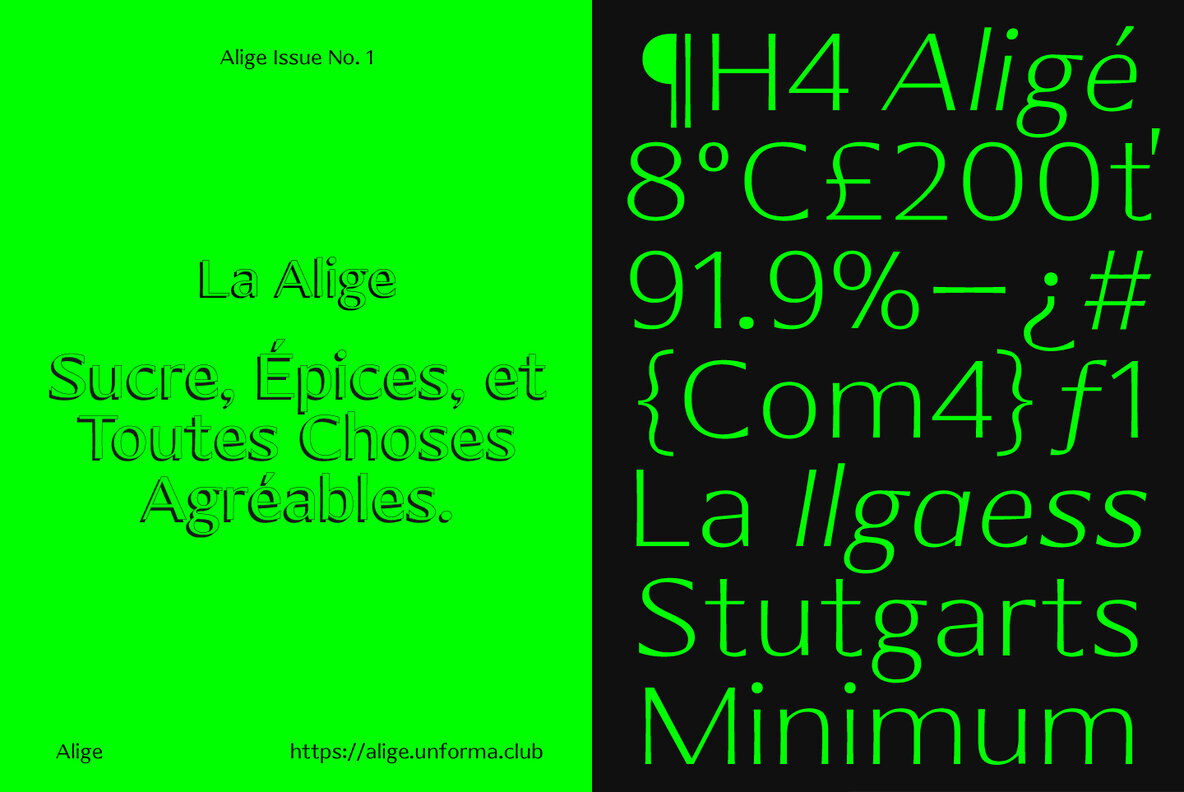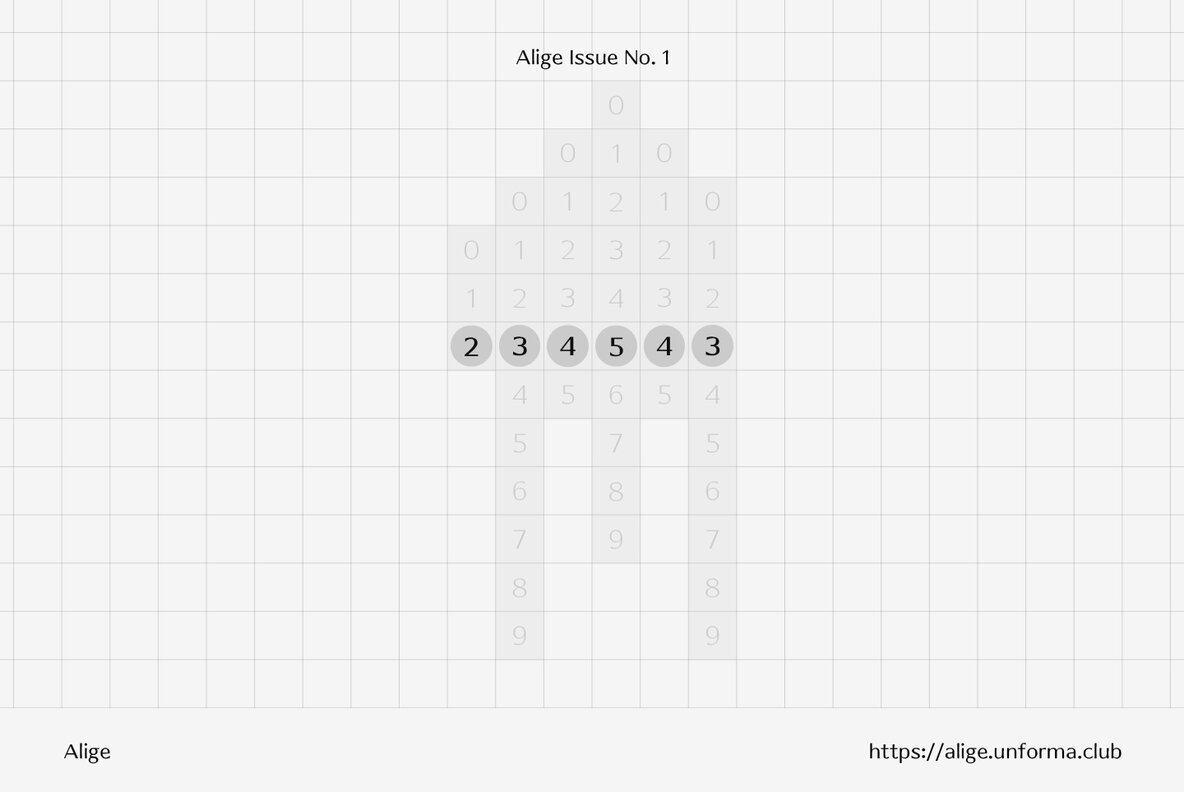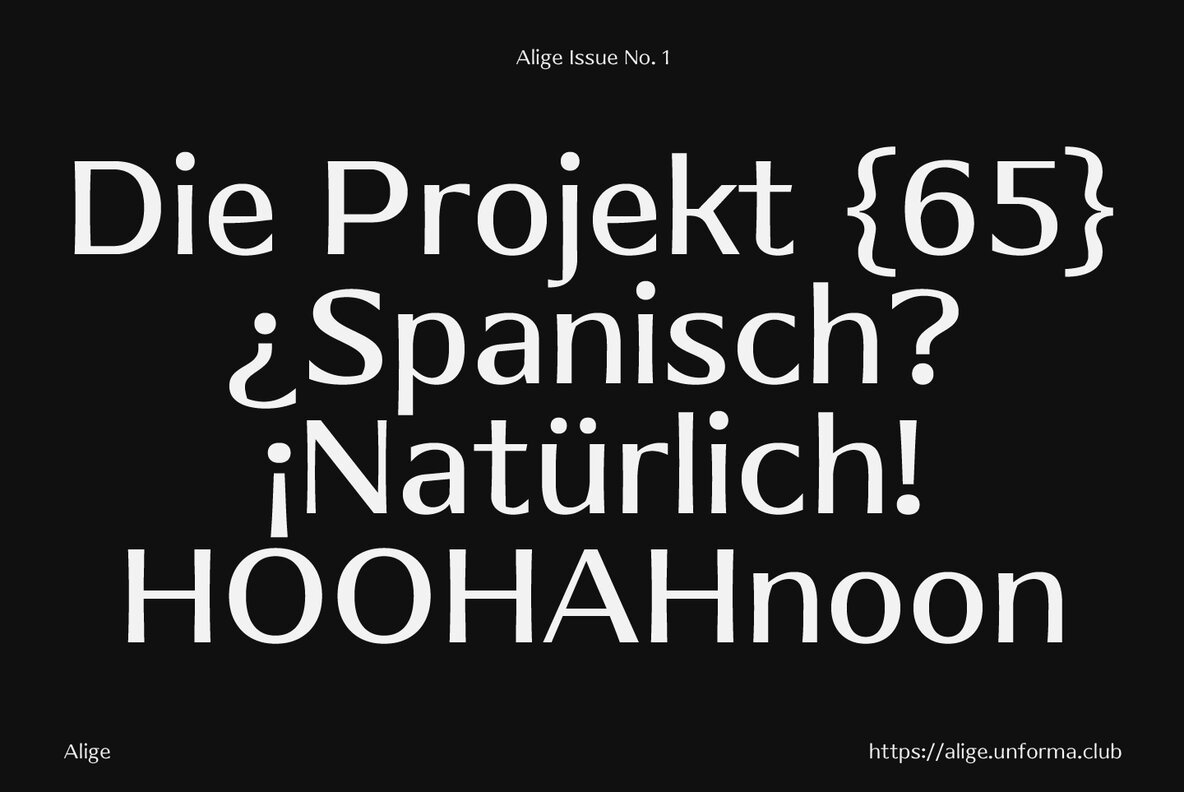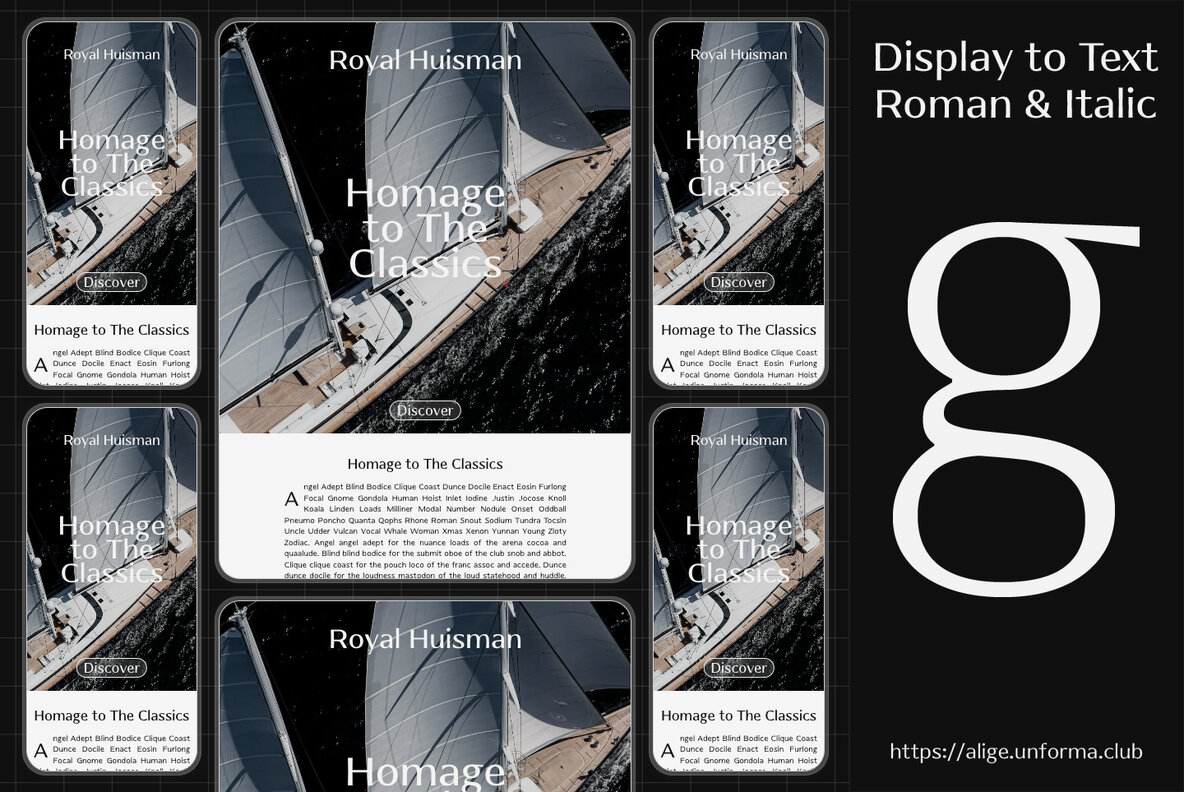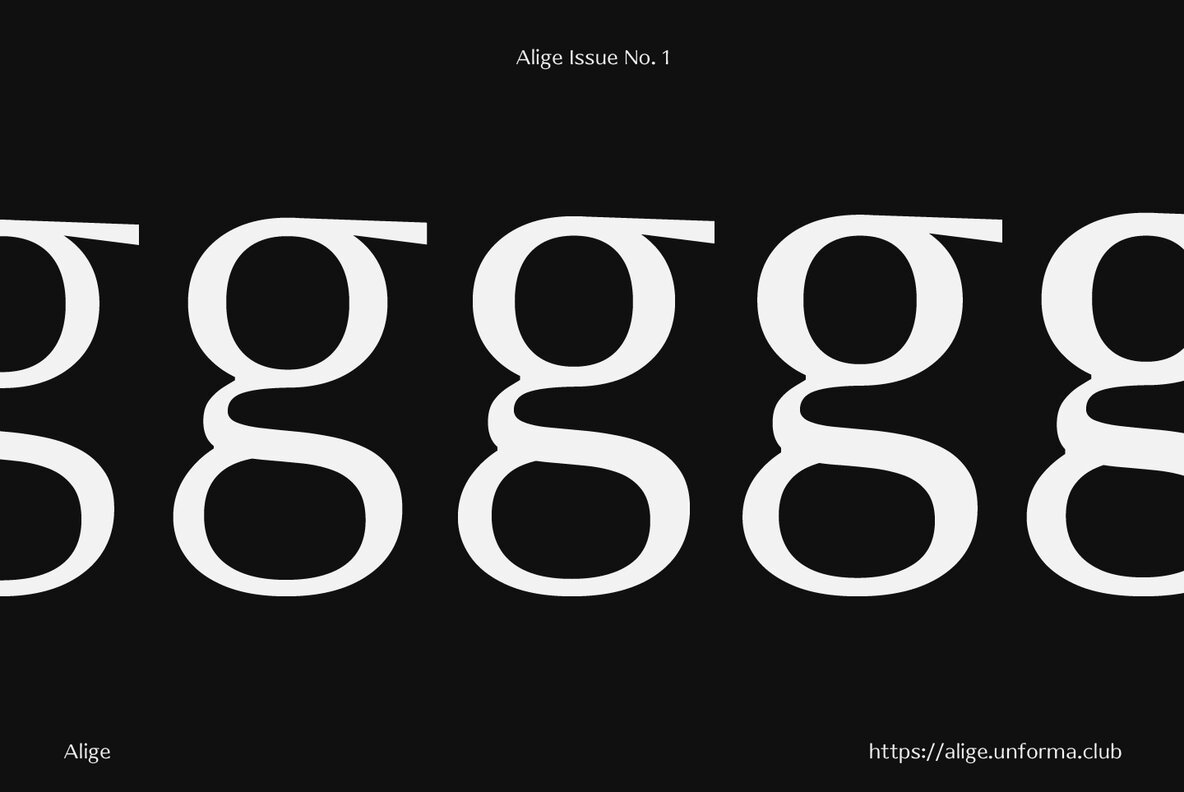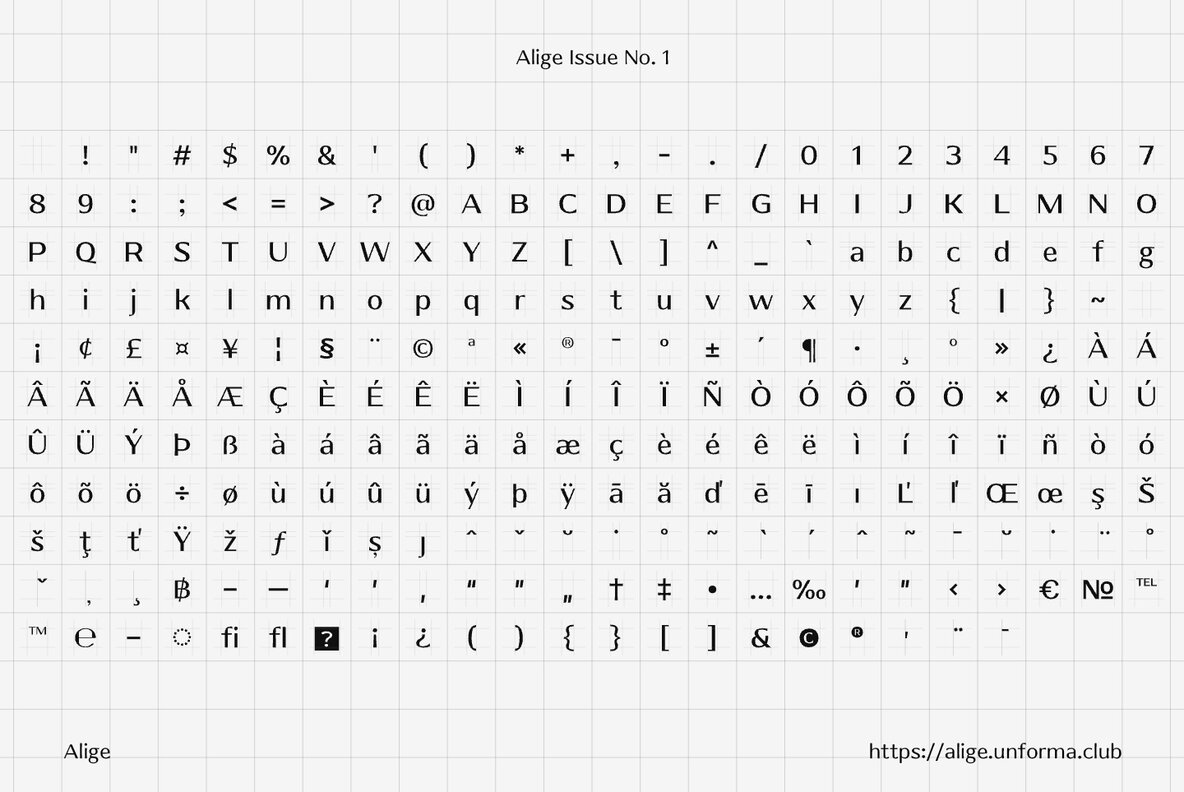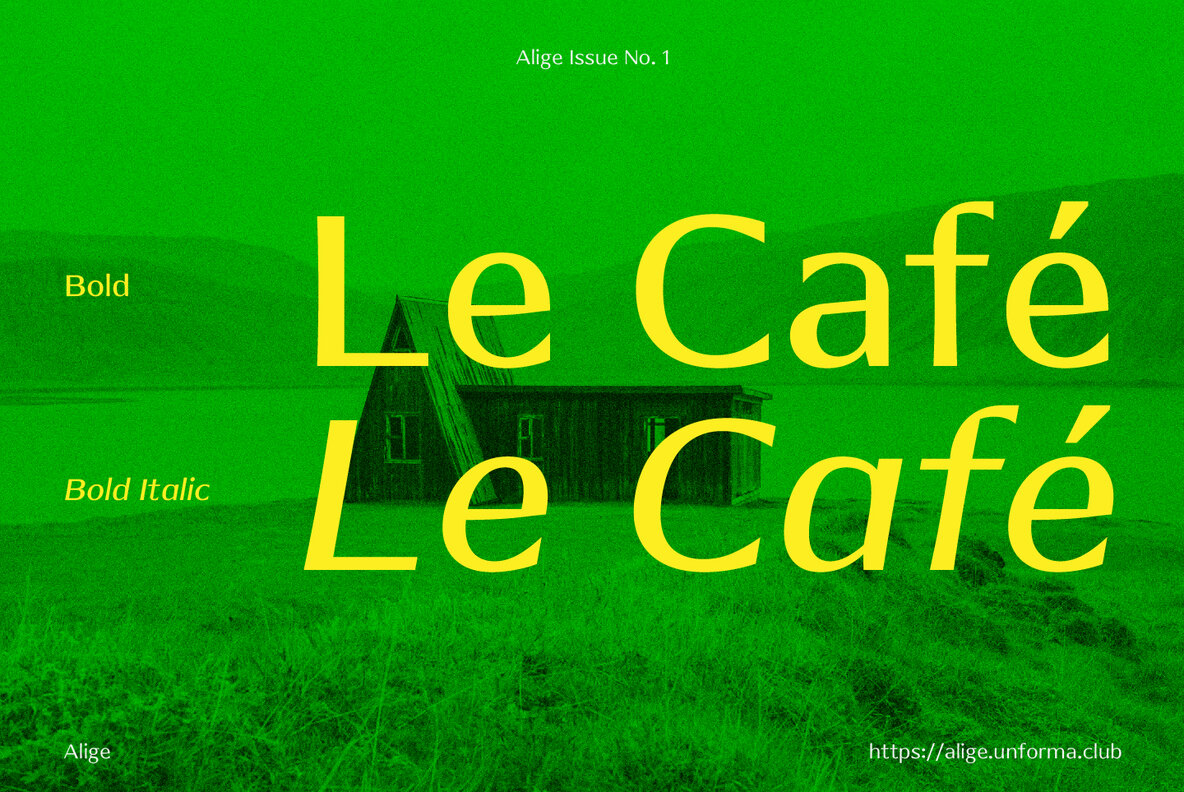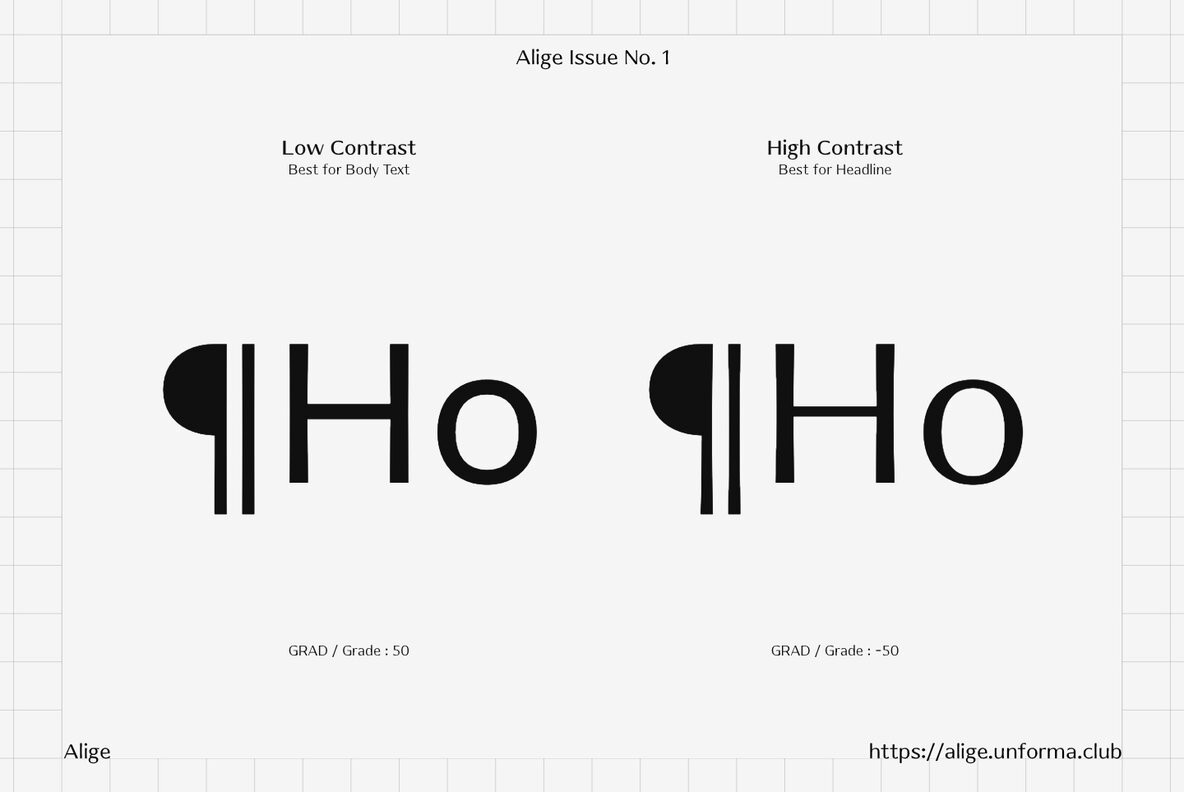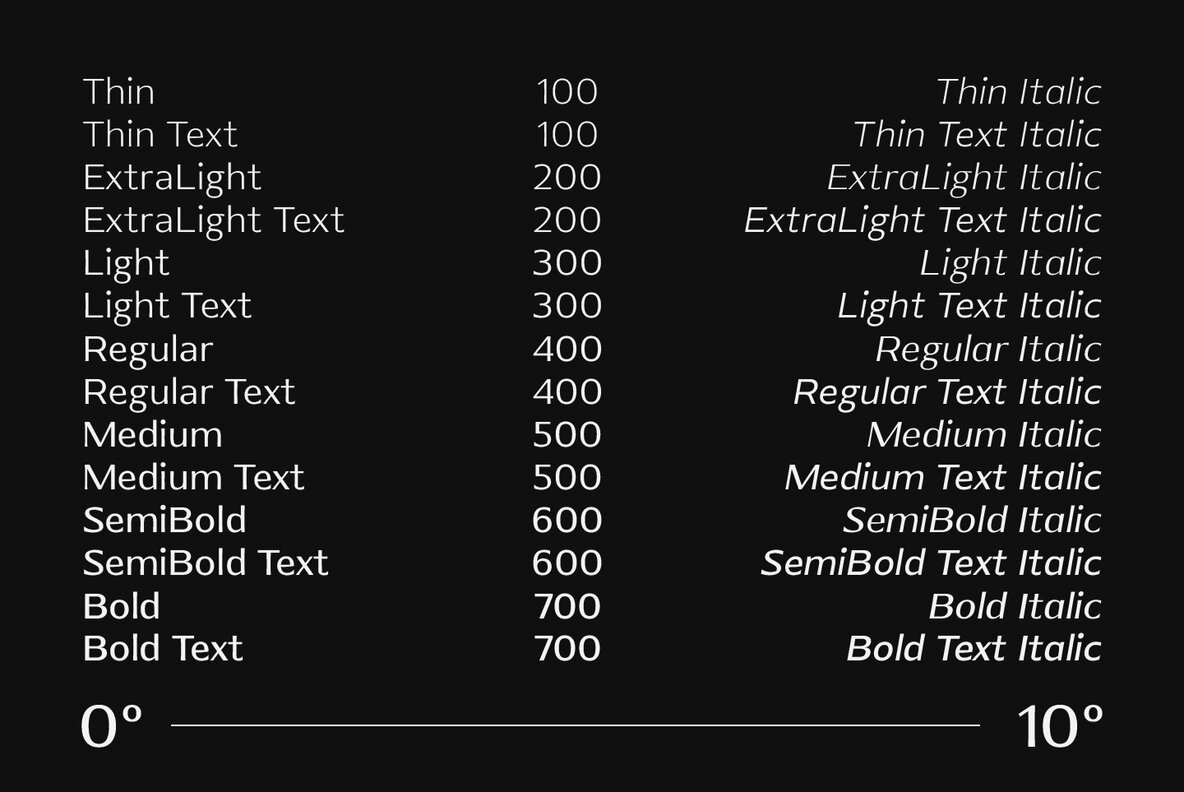
Alige Font
Alige is a humanist sans serif made for body text and display. Carried classic roman proportion in higher letterform for better reading experience. Also inspired by Optima Nova which designed by Hermann Zapf in early 50's.